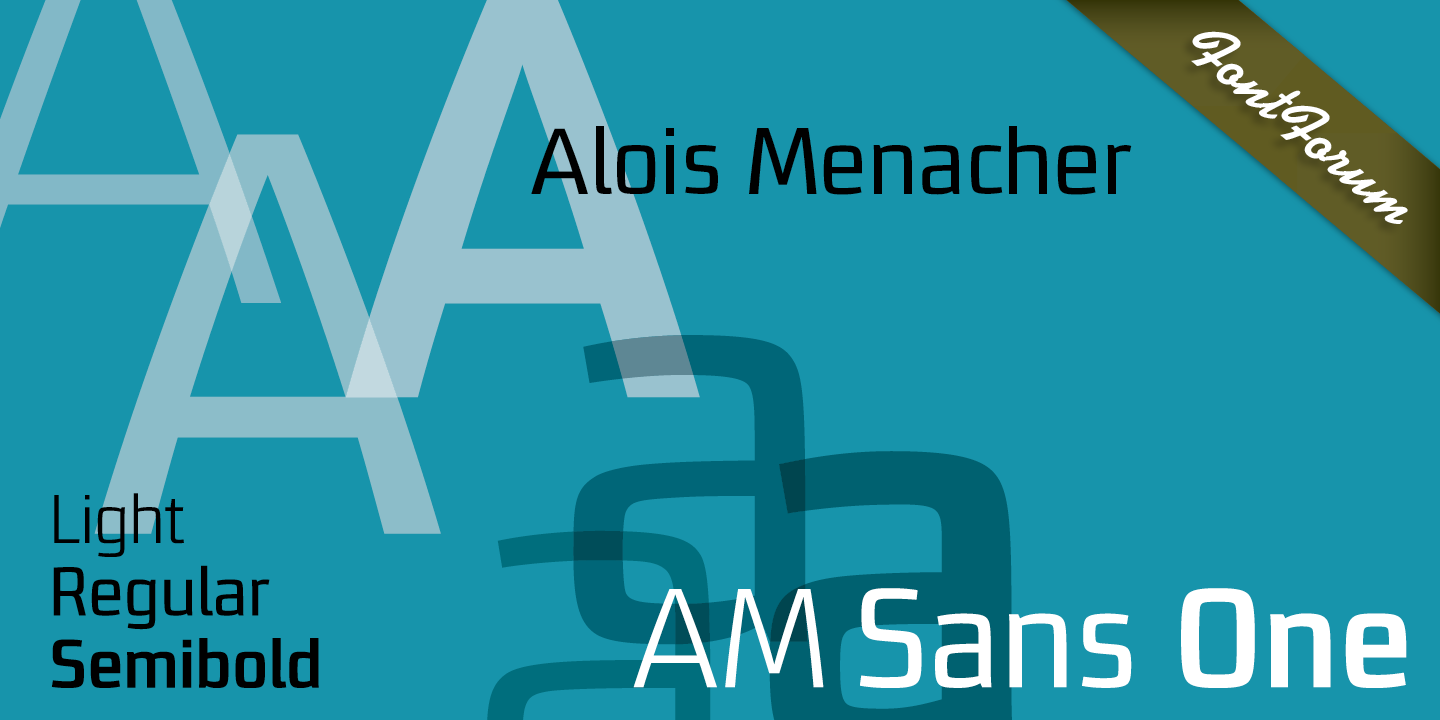
AM Sans One Font is perfect for minimalist brand identities, clean web interfaces, modern corporate communications, streamlined app designs, contemporary architectural presentations, sleek product packaging, professional documentation, digital platform layouts, tech startup materials, and efficient business communications.
AM Sans One Font is exciting because it represents the essence of clarity and functional beauty through its meticulously refined letterforms that eliminate visual noise while maximizing communication efficiency, creating the perfect balance between simplicity and sophistication.
AM Sans One Font family includes Regular, Bold, Light, Medium, Italic, Condensed, Extended, and Thin variations, providing designers with a complete minimalist toolkit to create pure, focused visual communications that prioritize clarity and modern aesthetic principles.
AM Sans One Font embodies the philosophy of purposeful design and efficient communication, making it an indispensable tool for organizations that value clarity, precision, and contemporary aesthetics in their brand messaging. This refined typeface brings systematic elegance to any design project, whether you're developing technology platforms, creating architectural documentation, or designing clean corporate identities. The perfectly optimized character spacing of AM Sans One Font Free Download ensures superior legibility while maintaining the minimalist aesthetic that appeals to modern audiences who appreciate functional beauty and uncluttered design solutions.
Technology industry leaders consistently select AM Sans One Font for software interfaces, digital products, and tech documentation because of its ability to enhance user experience through visual clarity and systematic consistency. The font's clean appearance makes it particularly effective for targeting professional audiences and creating digital environments that prioritize usability and cognitive ease.
AM Sans One Font excels in corporate and institutional environments where professionalism and efficiency are paramount. Consulting firms, financial institutions, and modern businesses rely on this font to create communications that feel both authoritative and accessible while maintaining visual consistency across all touchpoints.
The architecture and design industries have embraced AM Sans One Font for project presentations, technical drawings, and contemporary portfolios. Its systematic visual character helps professionals create materials that communicate precision and modern thinking, appealing to clients who value both innovative design solutions and clear, efficient communication in their professional collaborations.